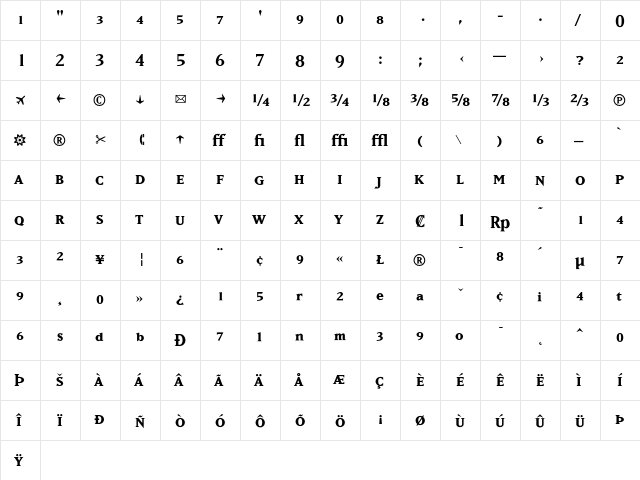
MatrixBoldFractions Medium
| Foundry | Copr. Emigre Graphics |
Design Context for MatrixBoldFractions Typeface
MatrixBoldFractions is a composed and adaptable typeface that performs quietly and consistently across a wide range of design contexts. Its bold stroke weight gives it real presence on the page.